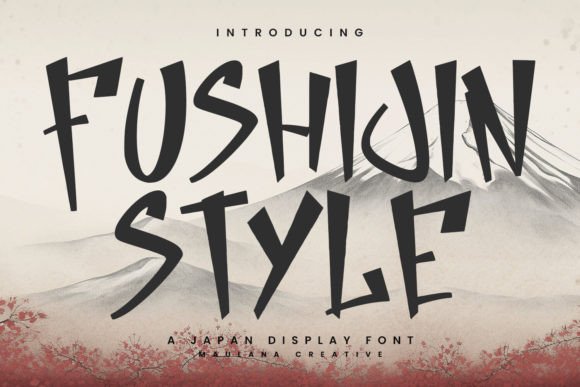
Fushijin Font: A Traditional Japanese Brush Font for Authentic Designs
The Fushijin font is a unique and artistic typeface that emulates the look of traditional Japanese calligraphy. With its natural, flowing style and thick and thin strokes, this font is perfect for adding a touch of Japanese culture to various designs, such as posters, invitations, logos, and more.
What is Fushijin Font?
Fushijin is a Japanese brush font that mimics the style of traditional Japanese calligraphy, also known as shodou or shuji. This font is designed to resemble the work of a skilled calligrapher, with bold and expressive strokes that give it an authentic feel.
Characteristics of Fushijin Font
The Fushijin font has several distinct characteristics that make it stand out from other typefaces:
- Natural, flowing style: The letters in the Fushijin font have a smooth, flowing quality that gives them a natural and organic feel.
- Thick and thin strokes: The font features a range of stroke widths, from thick and bold to thin and delicate, which adds to its artistic and expressive feel.
- Traditional Japanese feel: The Fushijin font is deeply rooted in Japanese culture and calligraphy, making it perfect for designs that require an authentic touch.
Uses of Fushijin Font
The Fushijin font is versatile and can be used in a variety of design projects, including:
- Posters and flyers: Add a touch of Japanese culture to your posters and flyers with the Fushijin font.
- Invitations and cards: Use the Fushijin font to create beautiful and elegant invitations and cards for special occasions.
- Logos and branding: The Fushijin font can be used to create unique and memorable logos and branding materials that reflect a Japanese aesthetic.
- Packaging and labels: Add a touch of authenticity to your packaging and labels with the Fushijin font.
Benefits of Using Fushijin Font
Using the Fushijin font in your designs offers several benefits:
- Authenticity: The Fushijin font provides an authentic and traditional Japanese feel that is sure to impress.
- Uniqueness: The Fushijin font is a unique and distinctive typeface that will set your designs apart from others.
- Artistic feel: The font’s natural, flowing style and thick and thin strokes give it an artistic and expressive feel.
The Fushijin font is a unique and artistic typeface that adds a touch of Japanese culture to any design. With its natural, flowing style and thick and thin strokes, this font is perfect for creating authentic and visually appealing designs. Whether you’re designing a poster, invitation, logo, or packaging material, the Fushijin font is a great choice.
- What is the Fushijin font?
- The Fushijin font is a Japanese brush font that mimics the style of traditional Japanese calligraphy.